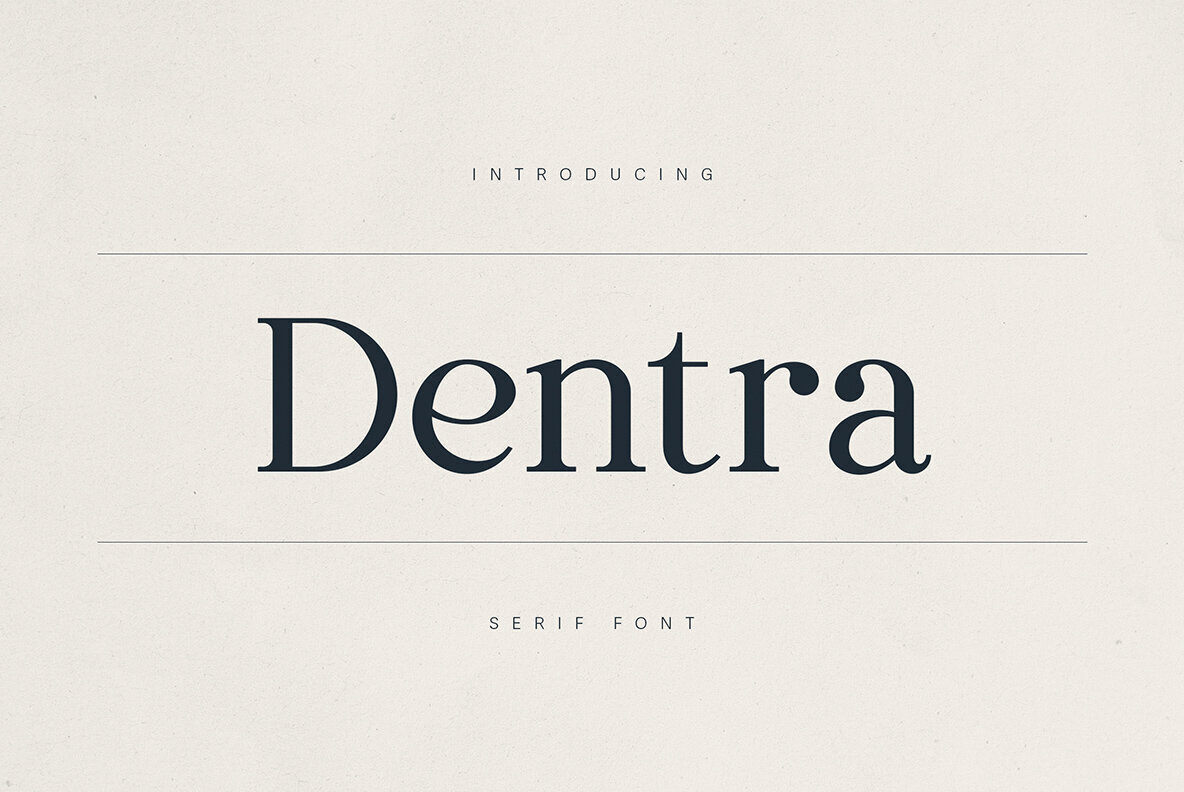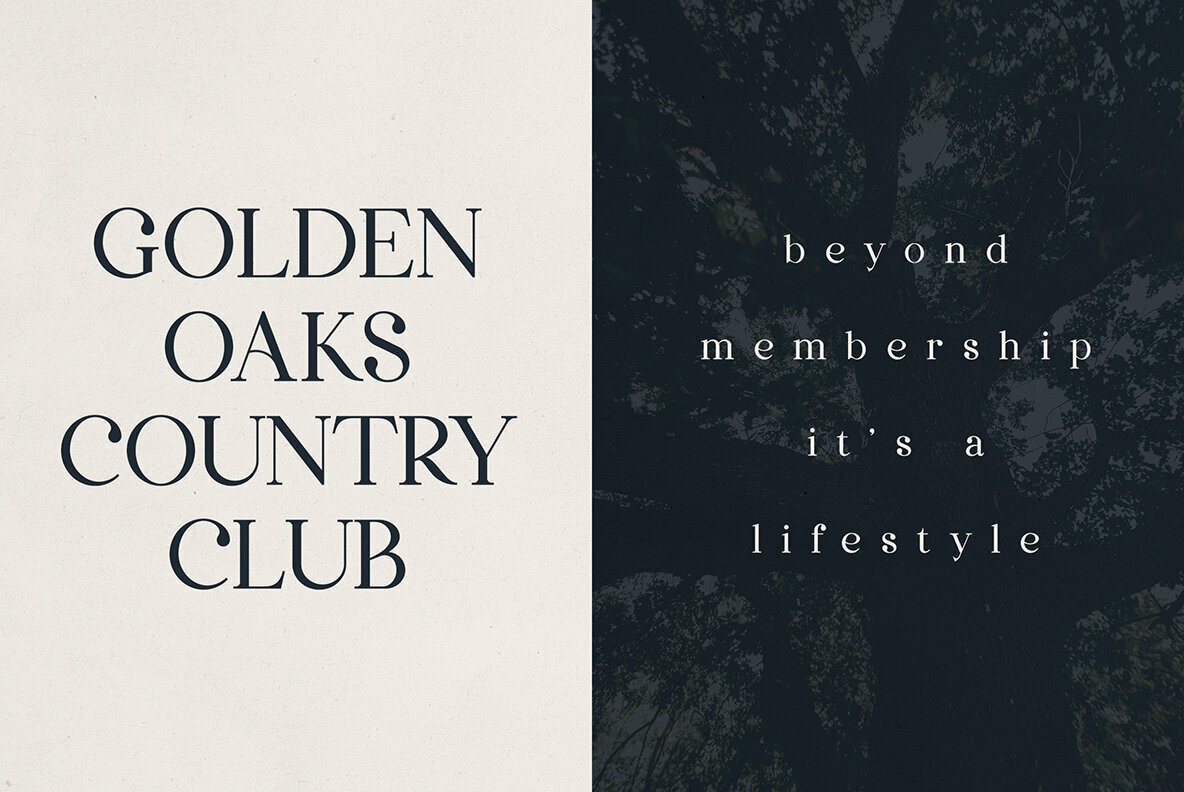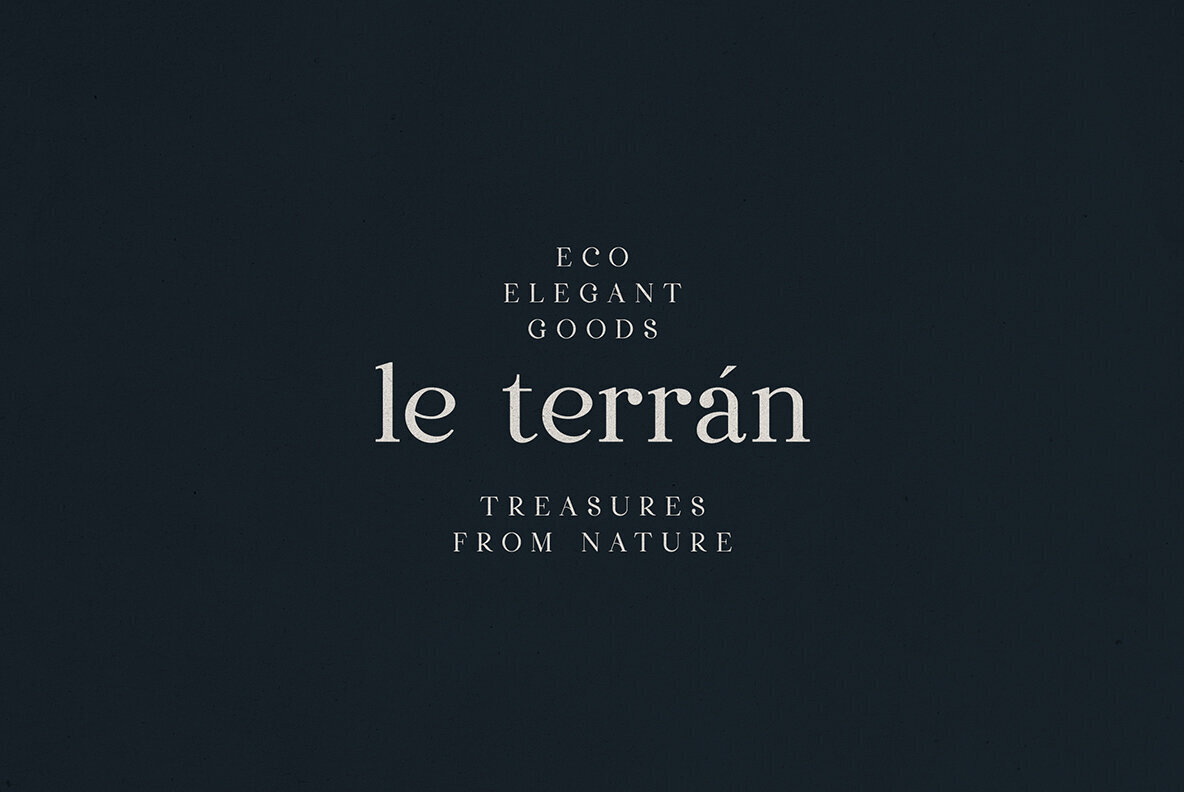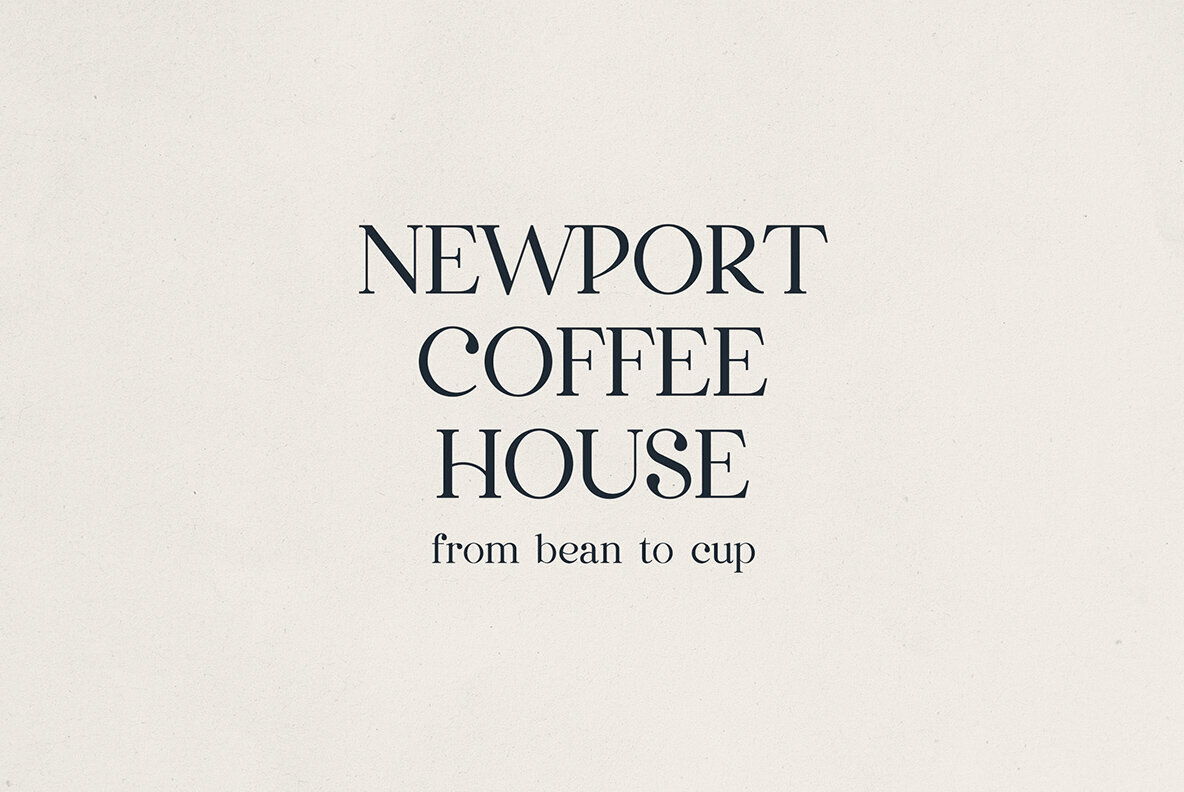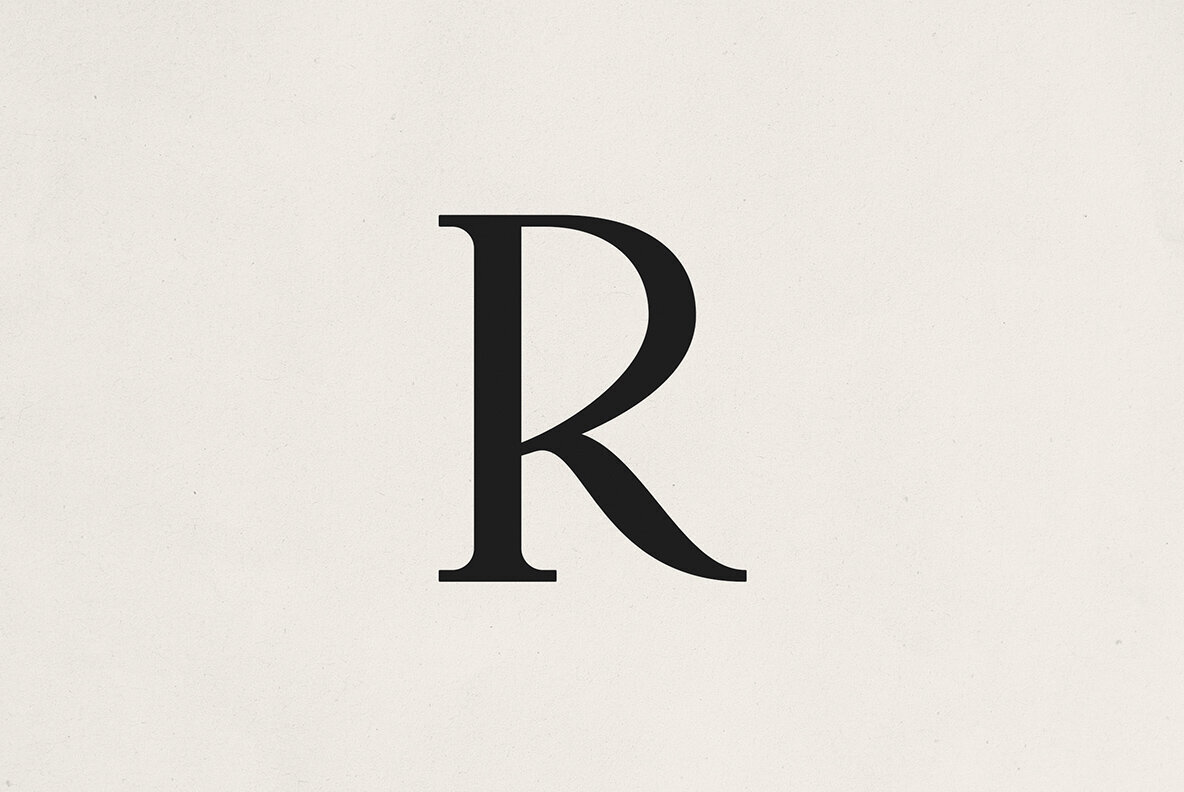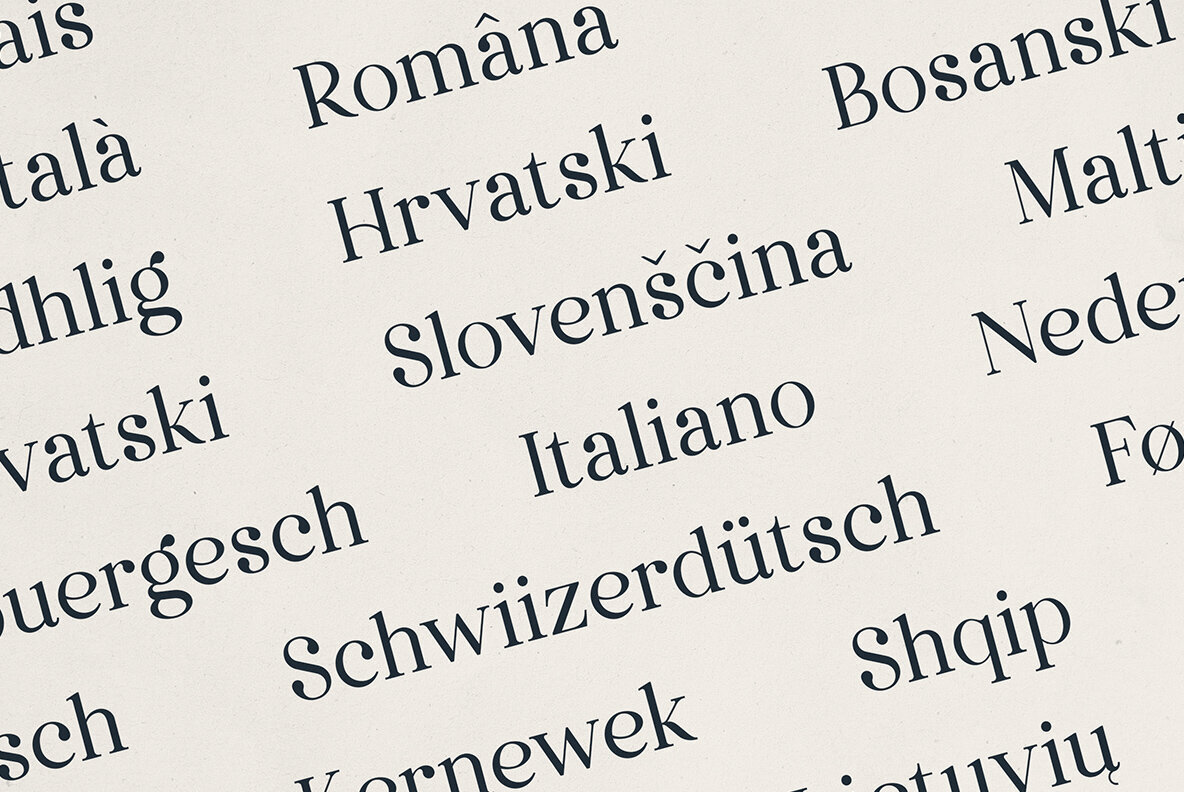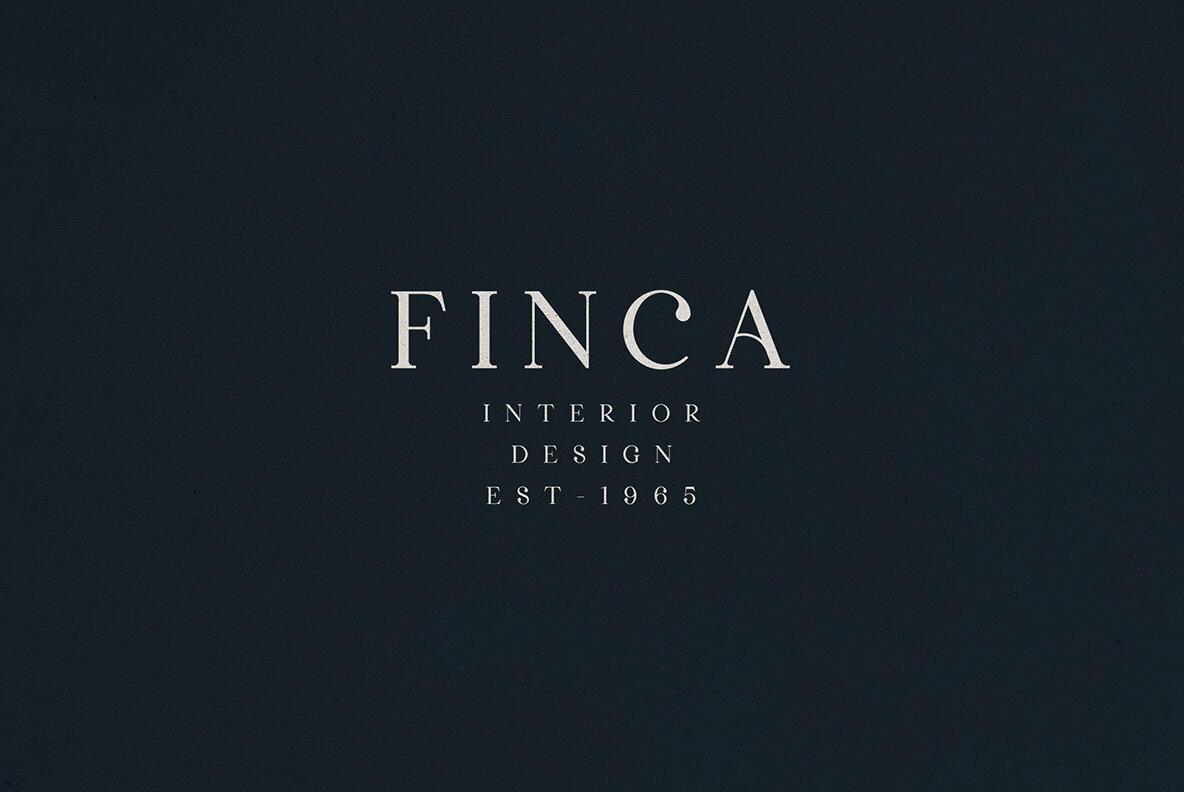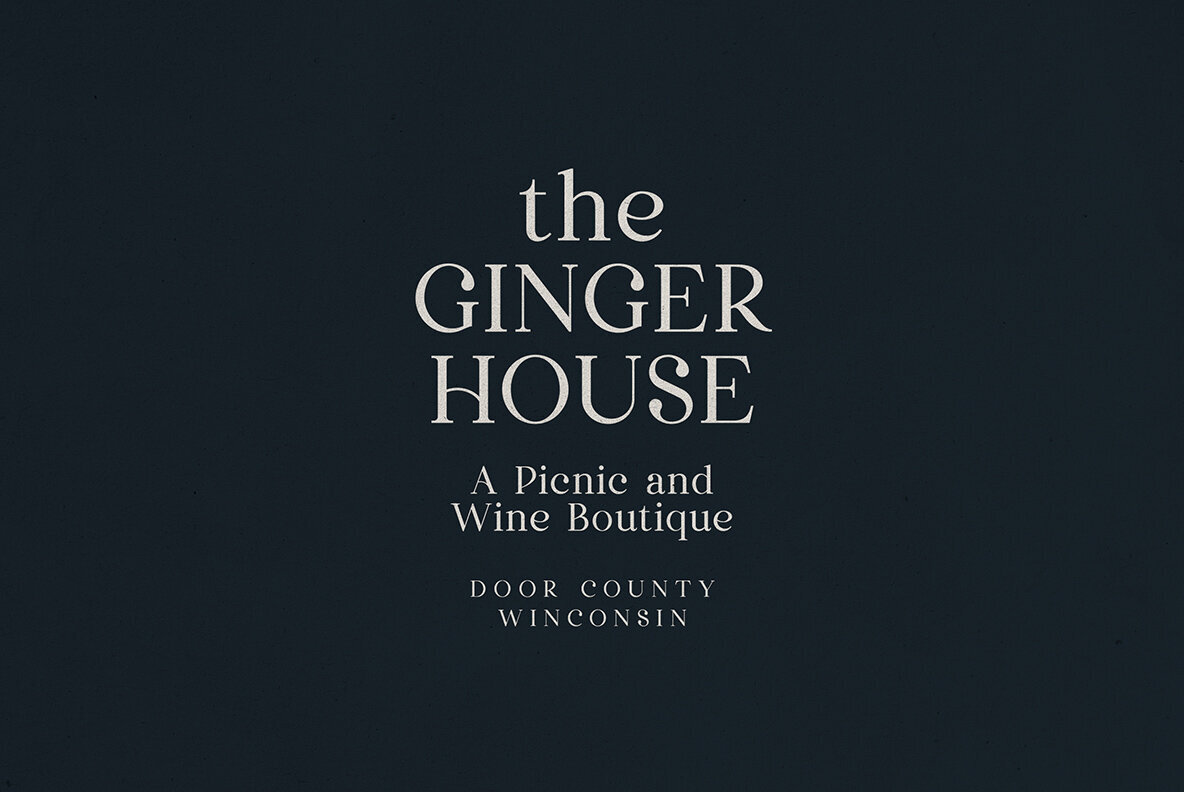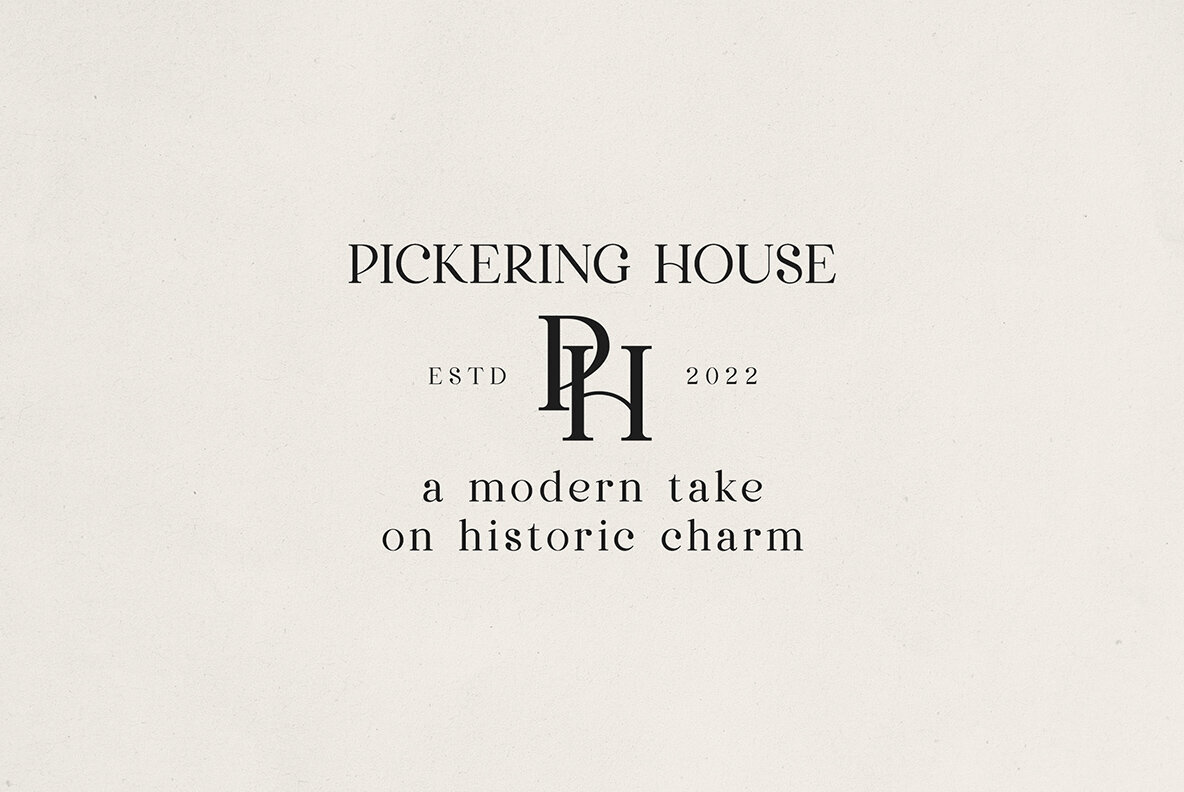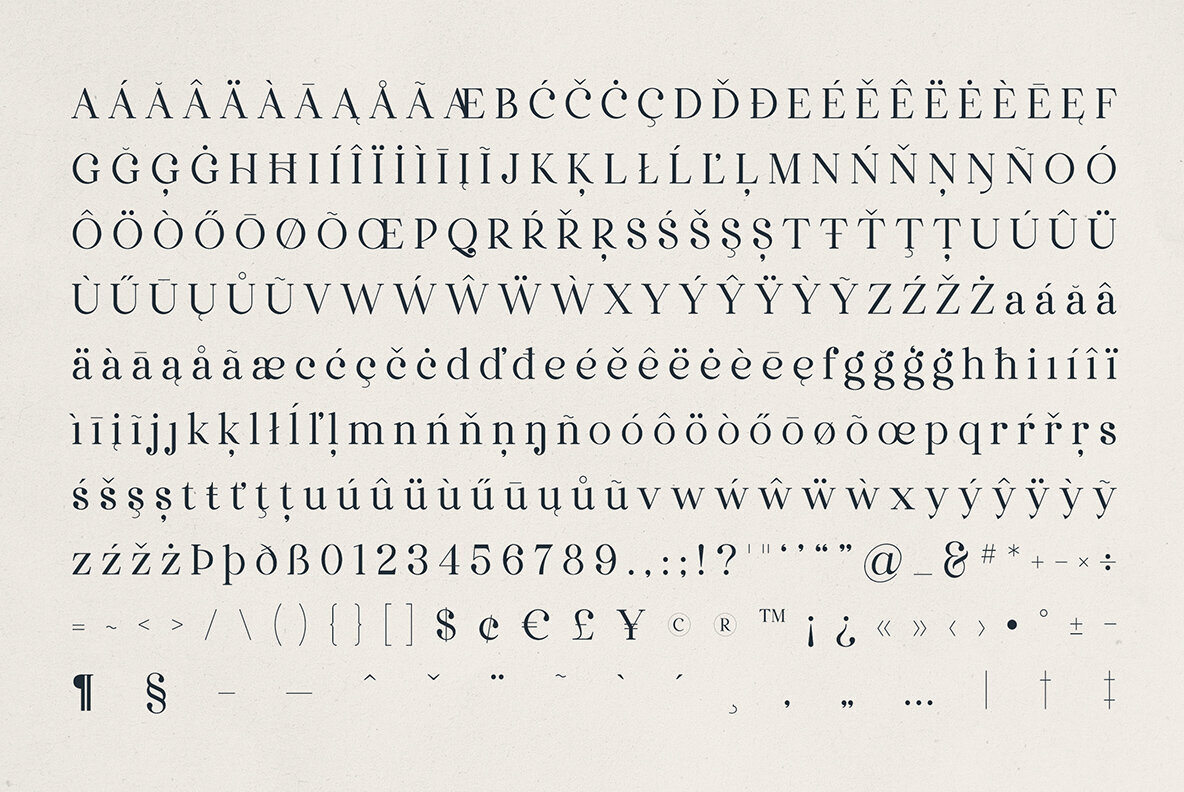
Dentra Font
Dentra
Dentra is a high-contrast serif typeface that embodies the perfect blend of timeless elegance and modern sophistication. With graceful curves, sharp serifs, and impeccably balanced proportions, it stands out as an ideal choice for brands and creatives who appreciate classic aesthetics with a contemporary twist. Whether elevating editorial headlines, luxury branding, boutique packaging, or elegant signage, Dentra consistently enhances every design it graces. Each refined letterform in Dentra offers a unique personality—bold yet approachable, expressive yet disciplined. It's designed to seamlessly support a wide array of projects, be it a country club logo, an eco-boutique brand, or a chic coffee house sign. Dentra's charm, clarity, and distinctive character bring every design to life. Its broad language support includes English, Spanish, French, German, Italian, and many more, making Dentra the quintessential choice for global design applications.Dentra – A Serif Type Face with Timeless Elegance